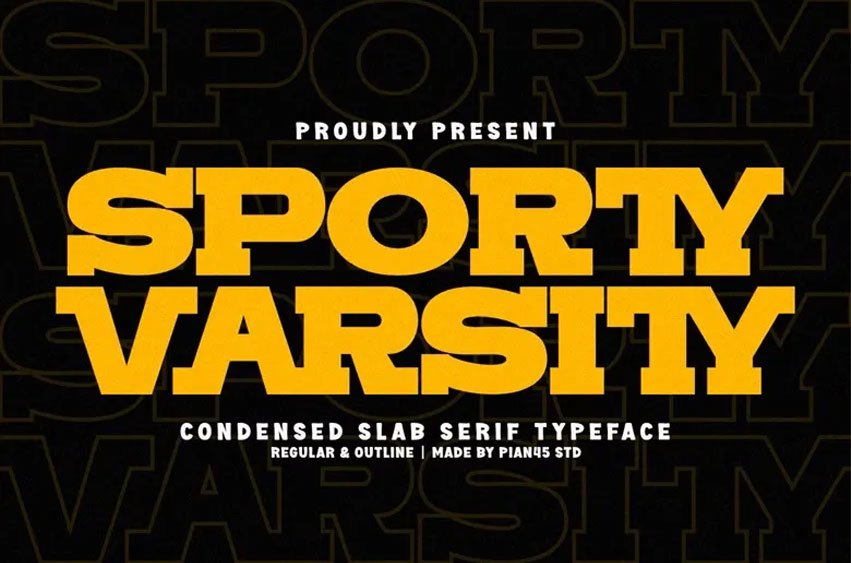
Sporty Varsity Font takes its inspiration from classic American sportswear and college athletics. This bold, block-style display typeface helps designers add a flexible, energetic, and athletic feel to their work.
The font has bold, slab-like serifs and thick outlines, giving it a cut-out look similar to traditional sports team jerseys. It works well for football jersey numbers, college branding, and gaming thumbnails.
Because of its strong style, it is not suitable for body text or formal documents.